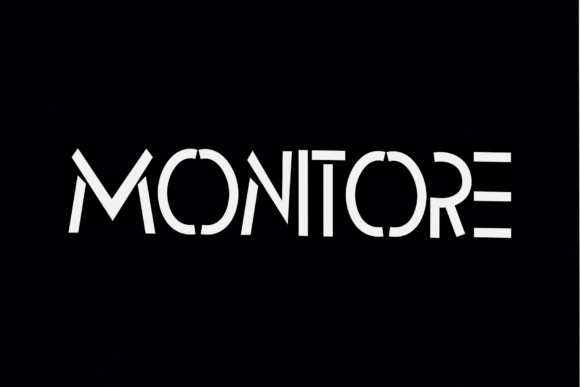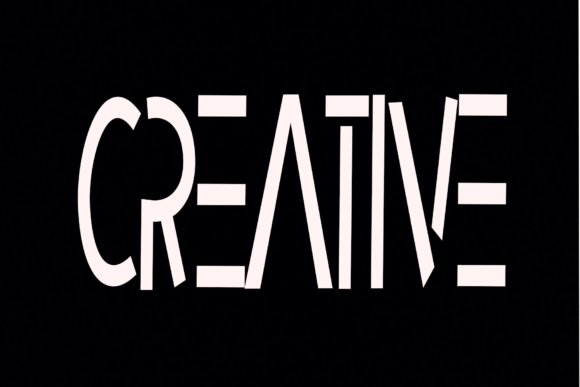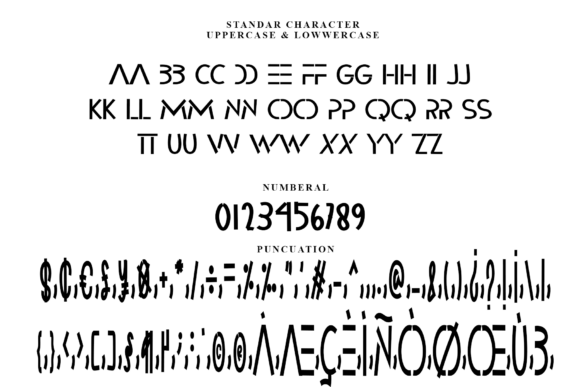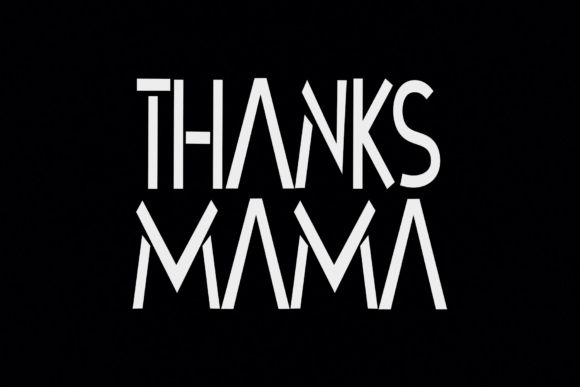
The Perfect Match for Your Creative Vision
Imagine you’re staring at a blank canvas, waiting for inspiration to strike. The cursor blinks, taunting you with every passing second. Suddenly, the words start flowing, and your vision begins to take shape. For many designers, this moment is the pinnacle of creativity – the point where ideas merge with execution.
Enter Designer Font, a sleek and modern typeface that embodies the essence of minimalist chic. This stylish font is designed to make a statement, with tall, slender characters and soft curves that exude professionalism and approachability. Whether you’re crafting a logo for a real estate company or designing the layout of a contemporary lifestyle magazine, Designer Font is the perfect match for your creative vision.
Key Features of “Designer Font”
- Font Family: A unique, hand-crafted font family with 12 styles, including regular, bold, italic, and bold-italic.
- Size: Designed to be highly legible at font sizes ranging from 8 to 24 points, making it suitable for a wide range of applications, from body text to headlines.
- Resolution: Optimized for high-resolution displays, with clear and crisp typography at resolutions up to 300 DPI.
- Unique Characteristics: Features a distinctive, modern aesthetic with subtle flair and flair-like details, giving it a sophisticated and eye-catching appearance.
Designer Font Review
Overall, I have mixed feelings about “Designer Font”. While it has some nice features, there are also some areas where it falls short.
- Highly customizable: I can easily adjust the font size, color, and style to fit my needs.
- Good legibility: Even at small sizes, the font remains clear and easy to read.
- Wide compatibility: I can use it across multiple platforms and devices without any issues.
- Limited font options: Compared to other fonts, “Designer Font” has a relatively small collection of styles.
While “Designer Font” has its strengths, its limitations hold it back from being a top choice for designers. If you’re looking for a highly customizable font with good legibility, it may be worth considering. However, if you need a wide range of font options or free access, you may want to look elsewhere.
Tip: Use Designer Font for titles and headings to add a touch of elegance to your design.
Tip: Experiment with different font sizes and styles to create a unique visual identity.
Tip: Use Designer Font for headings and titles to create a cohesive visual brand.
Designer Font is ideal for:
- Marketing materials (brochures, flyers, posters)
- Website design and development
- Print materials (business cards, letterheads, menus)
Remember to use Designer Font consistently throughout your design to create a strong visual identity.
Alternatives to “Designer Font”
Playfair Display is an elegant and luxurious serif font ideal for creating a high-end feel in design projects. It is perfect for use in titles, headings, and other areas where you want to add a touch of sophistication. Compared to “Designer Font”, Playfair Display is more refined and has a more classic feel.
Montserrat is a modern sans-serif font designed for urban environments. It is highly legible and versatile, making it suitable for a wide range of applications, from body text to titles. In comparison to “Designer Font”, Montserrat is more minimalist and has a stronger focus on legibility.
Great Vibes is a beautiful and elegant script font that is perfect for adding a touch of personality to your designs. It is ideal for use in titles, quotes, and other areas where you want to create a sense of whimsy. Compared to “Designer Font”, Great Vibes is more playful and has a more organic feel.